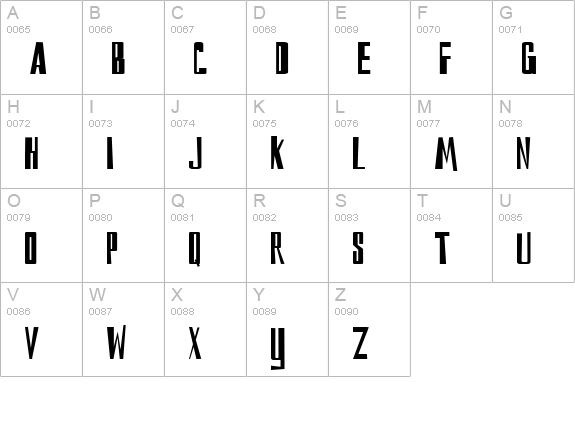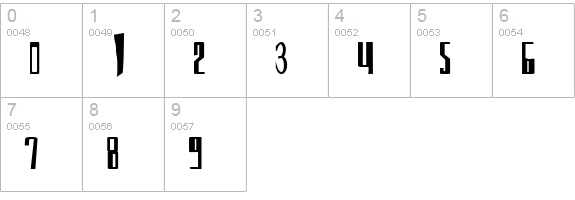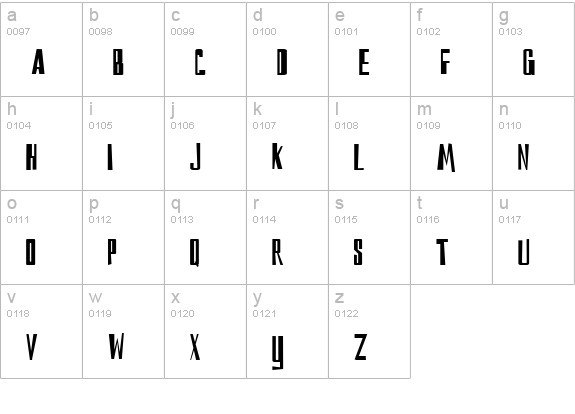
reckoning Font Details
Introducing Reckoning Font, a breathtakingly beautiful typeface that effortlessly captures attention with its unique and versatile design. This font is a true masterpiece, carefully crafted to exude elegance, sophistication, and a touch of modernity. Reckoning Font is the perfect choice for those seeking to make a lasting impression with their designs. Whether you are working on a branding project, creating eye-catching logos, designing captivating invitations, or crafting stunning headlines, Reckoning Font will elevate your creations to new heights. The beauty of this font lies not only in its striking appearance but also in its exceptional functionality. Its clean lines and well-balanced proportions make it highly legible, ensuring that your message is conveyed with clarity and impact. With a range of meticulously designed characters, including uppercase and lowercase letters, numerals, punctuation marks, and special glyphs, Reckoning Font offers endless possibilities for creative expression. One of the most remarkable features of Reckoning Font is that it is freely available to download at FontsMarket.com. Yes, you read that right - this incredible font can be yours without any cost. This makes it an invaluable asset for designers, artists, and enthusiasts who wish to enhance their projects without breaking the bank. So, why wait? Visit FontsMarket.com today and discover the wonders of Reckoning Font. Download it, unleash your creativity, and let this font become the driving force behind your most exceptional designs. Whether you're a seasoned professional or just starting your creative journey, Reckoning Font is here to empower you to create something truly extraordinary.